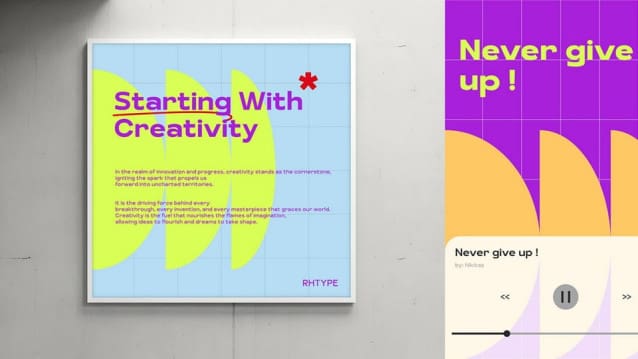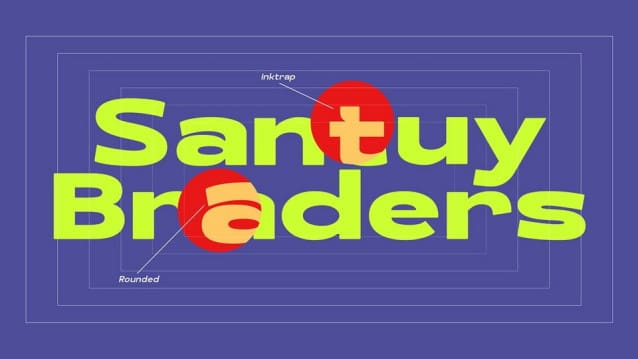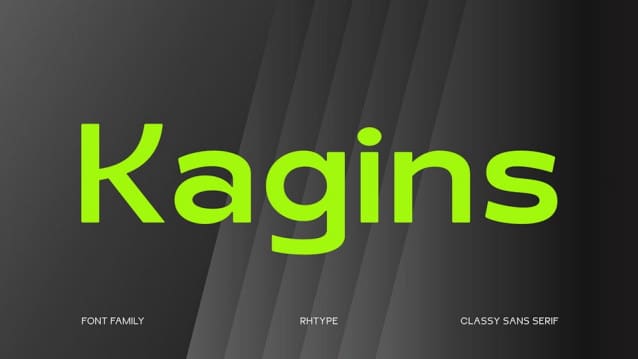
Kagins Font
Kagins Font is a modern sans-serif font with expansive width and sleek design. The font is crafted with wide proportions and clean lines, creating a sense of spaciousness and modernity.
With its contemporary style, Kaginsfont is perfect for projects that demand a bold and impactful typographic statement. Whether you’re designing headlines, banners, or branding materials, this font adds a sense of openness and sophistication to your text.